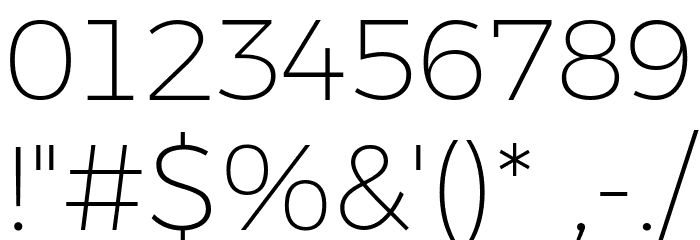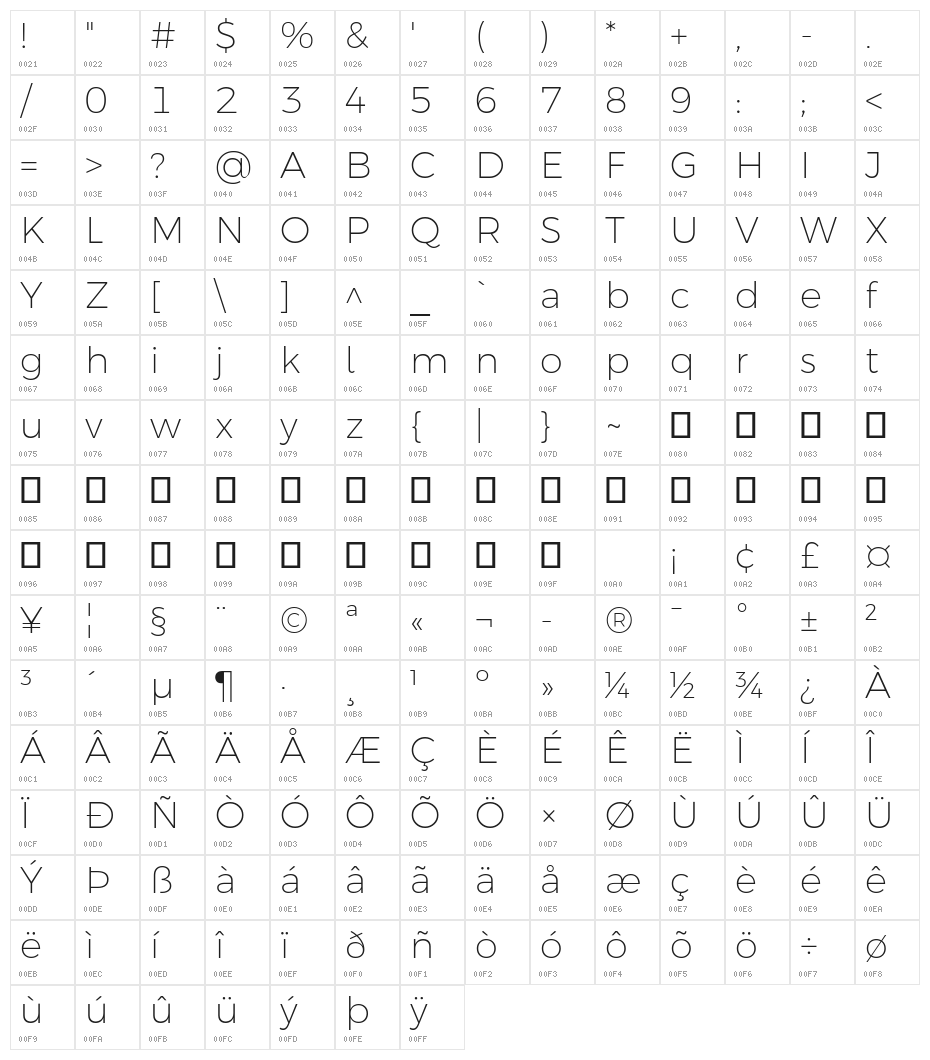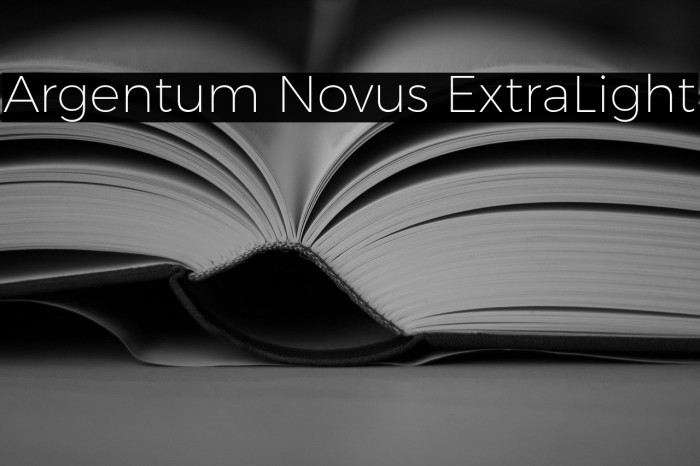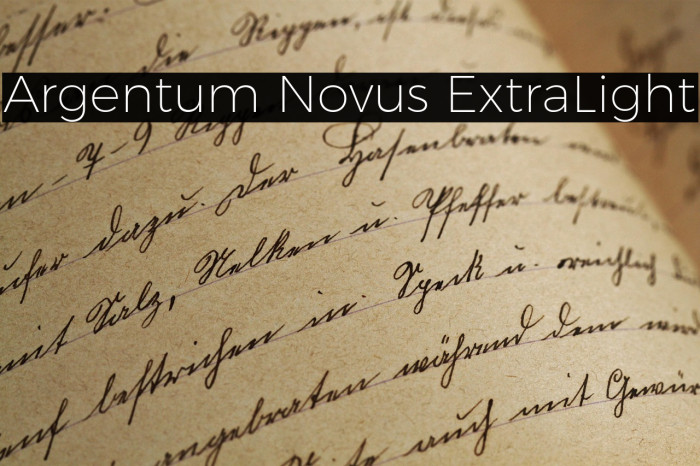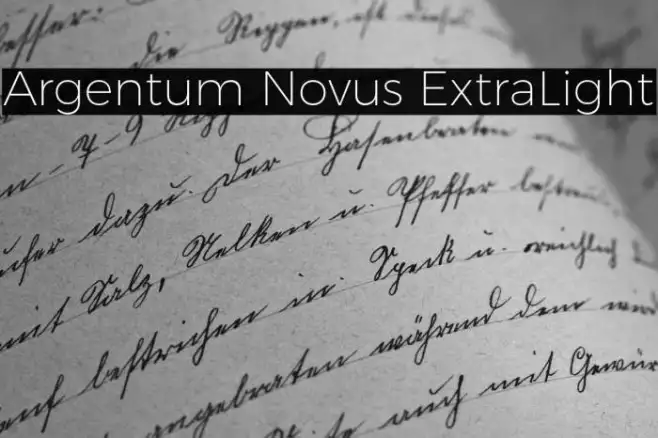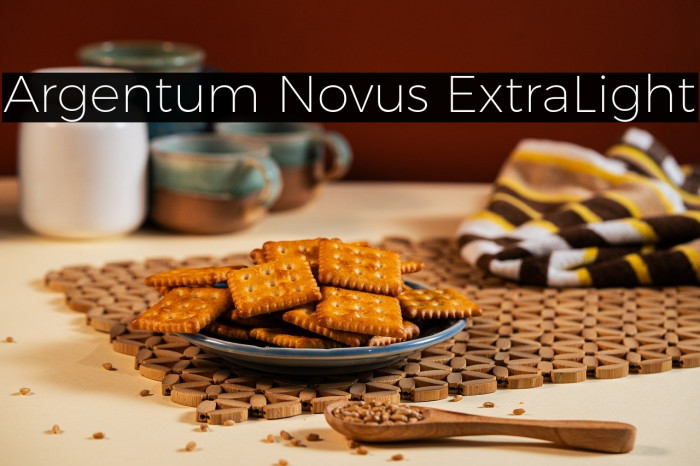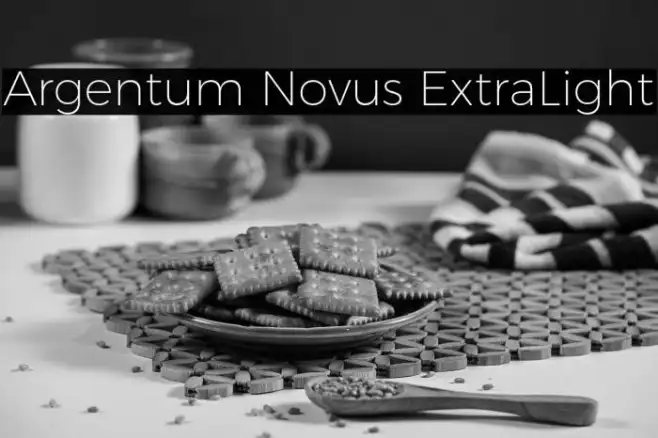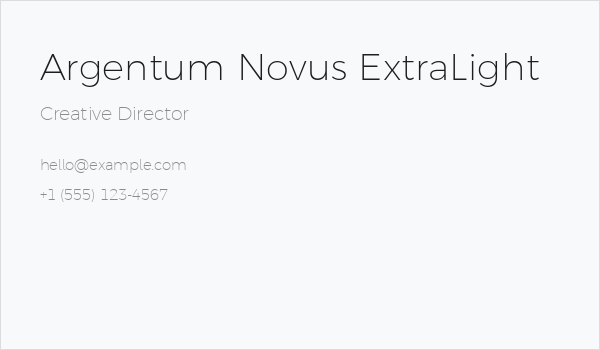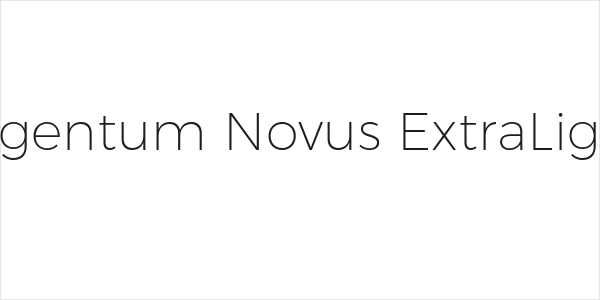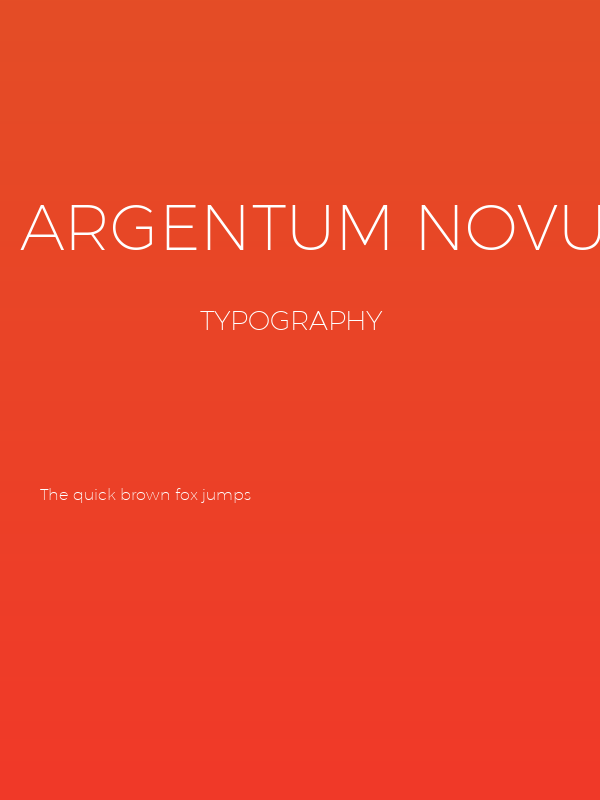
Argentum Novus ExtraLight Font
Argentum Novus ExtraLight Description
This font features a clean and modern sans-serif design with an extra-light weight, offering a sleek and minimalist appearance. The characters are evenly spaced with a uniform stroke width, providing a harmonious and balanced look. Its geometric shapes and smooth curves create a contemporary feel, making it suitable for a wide range of applications. The font maintains clarity and legibility, even at smaller sizes, due to its precise and well-defined letterforms. Its simplicity and elegance make it versatile for both digital and print media.
| Proposed Projects | Ideal for branding, web design, corporate materials, and minimalist print layouts. |